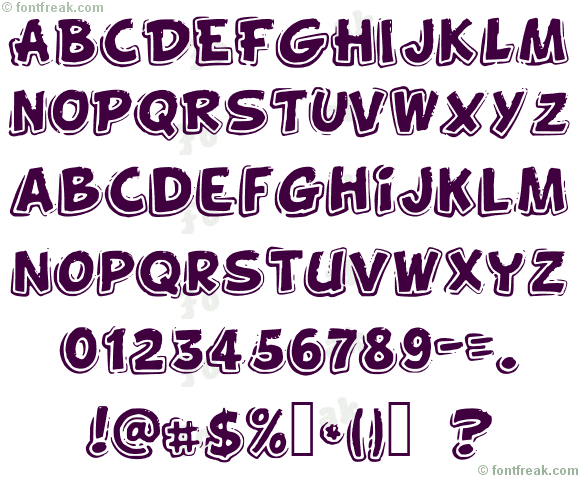
FunnyKid
About FunnyKid
The FunnyKid font, created by Leonard Posavec and available for free download, is a playful display typeface that exudes a sense of whimsy and joy. This font falls into the decorative category, characterized by its rounded, slightly irregular letterforms that mimic the carefree nature of children's handwriting. With a moderate stroke weight and minimal contrast, the letters have a consistent thickness that enhances their friendly appearance. The spacing between characters is well-balanced, allowing for easy readability while maintaining a lighthearted vibe.
The FunnyKid font is particularly well-suited for a variety of creative applications. It shines brightly in children's book covers, where its fun aesthetic can engage young readers. Additionally, it is perfect for birthday party invitations, adding a festive touch that captures the spirit of celebration. Graphic designers will find it an excellent choice for posters, especially for events geared towards families or youth, where a lively and approachable font is essential. Restaurant menus targeting a younger audience can also benefit from this cheerful typeface, making the dining experience feel more inviting.
Targeting graphic designers, small business owners, and content creators, the FunnyKid font offers a unique way to convey a playful message. Its quirky style makes it ideal for anyone looking to add a dash of fun to their projects while still maintaining a professional appearance.
What sets the FunnyKid font apart is its ability to evoke nostalgia and joy, making it an engaging choice for those looking to connect with audiences on a personal level. Its versatility in various design contexts ensures that it will stand out, making it a delightful addition to any typographic toolkit. Don't miss the opportunity to enhance your projects with a FunnyKid font free download today.